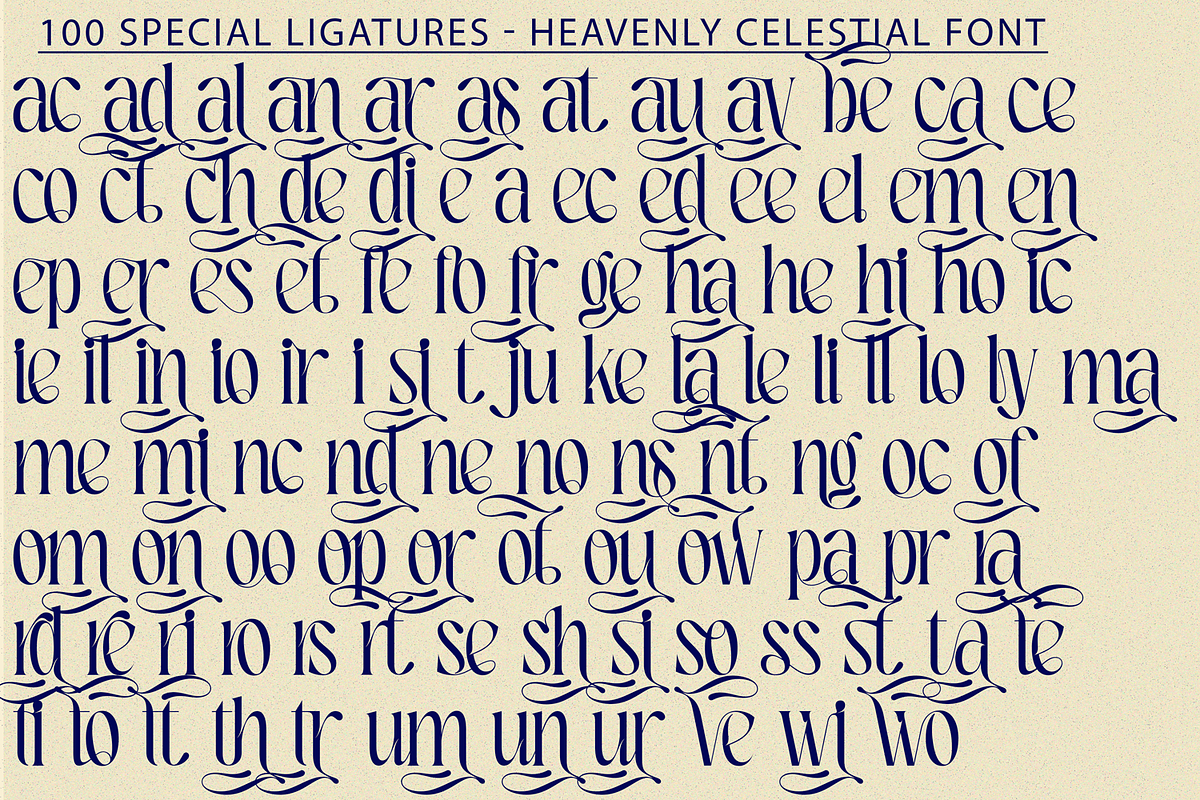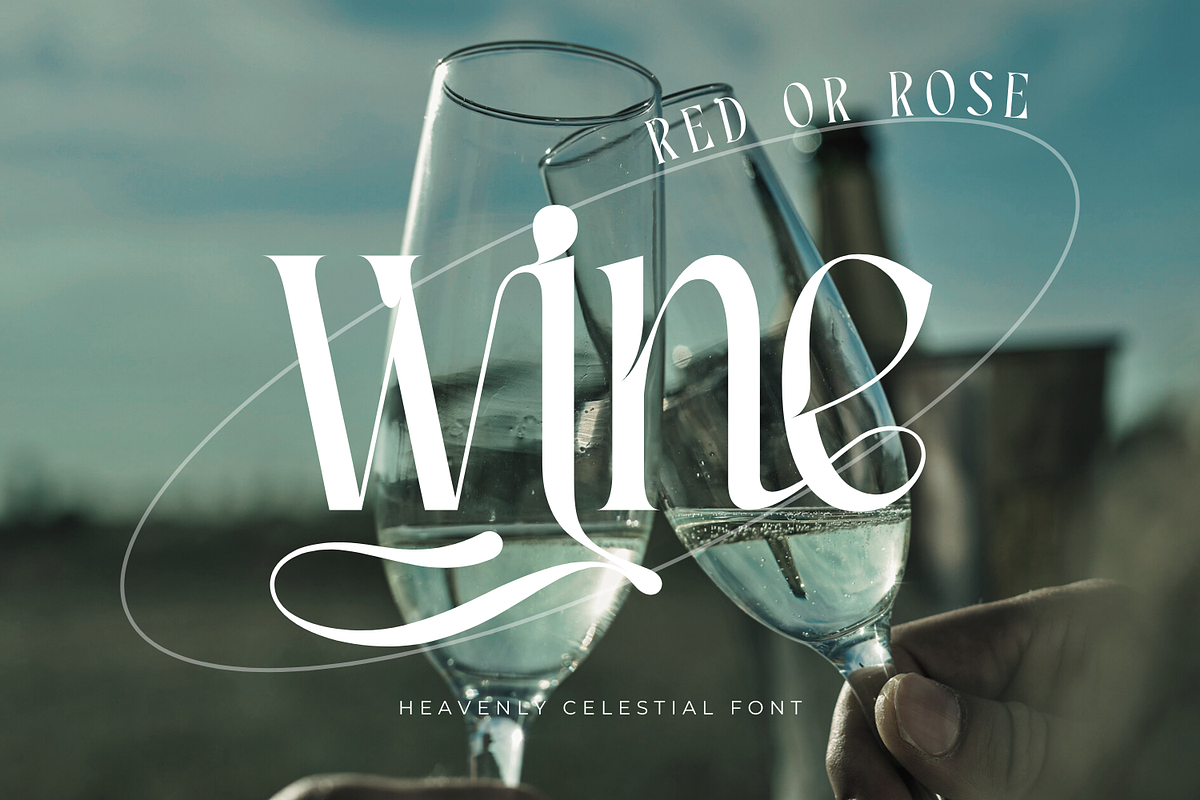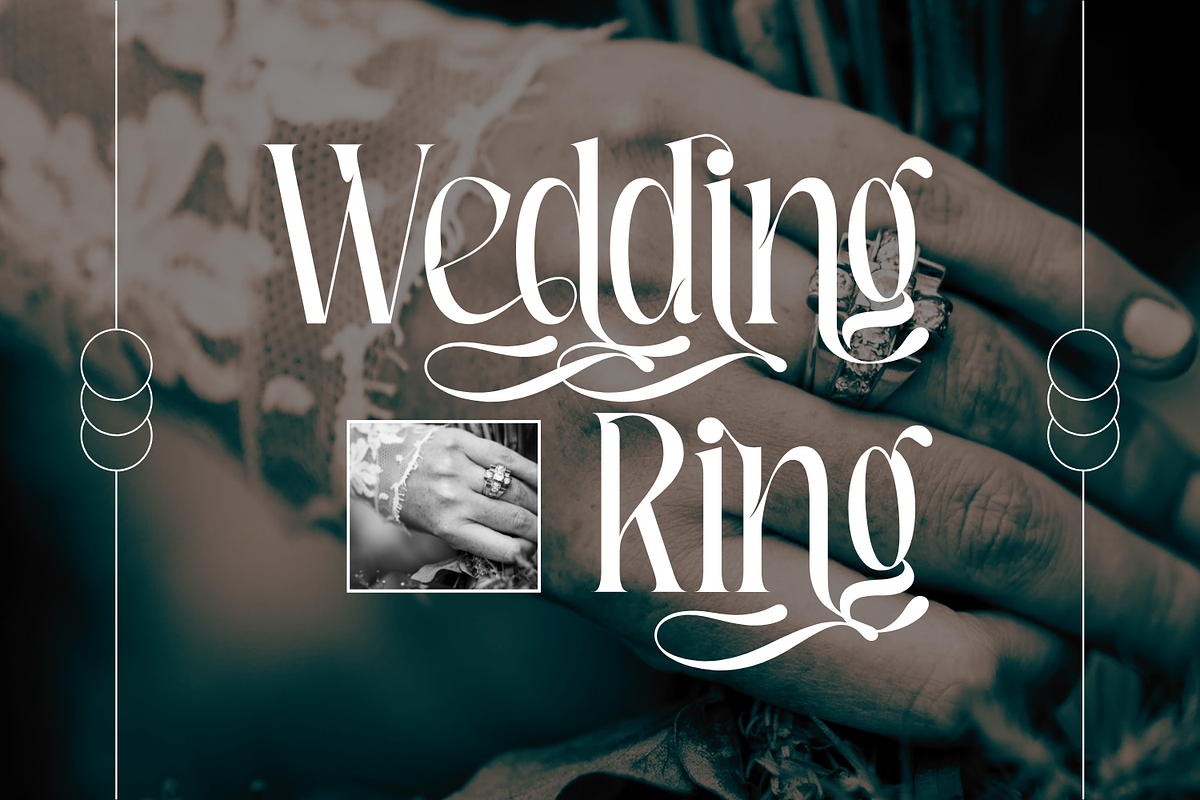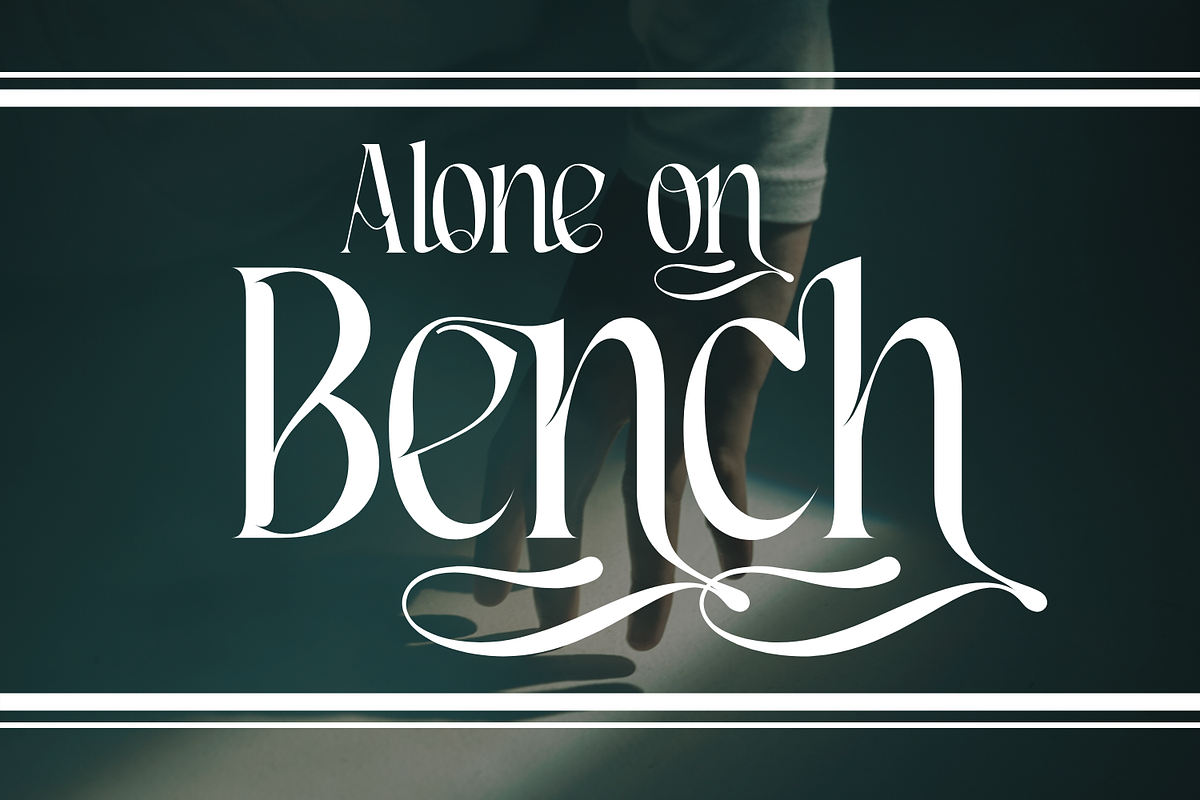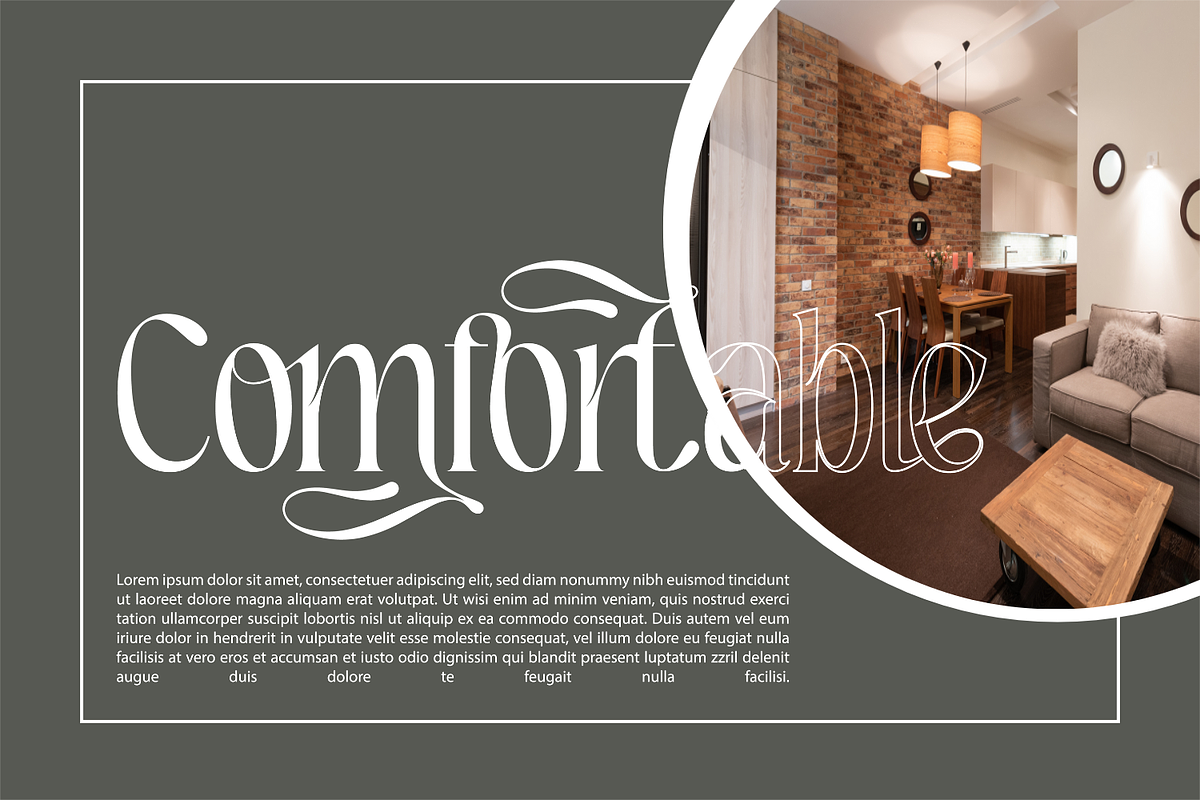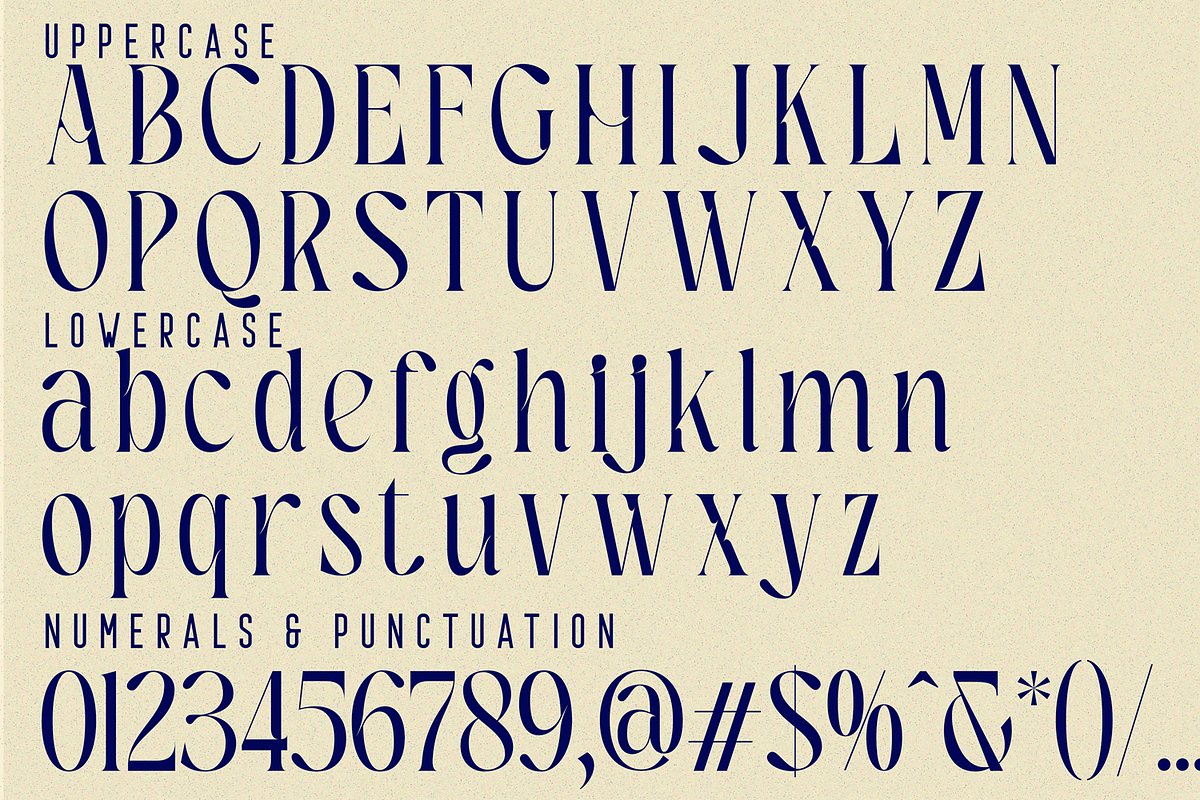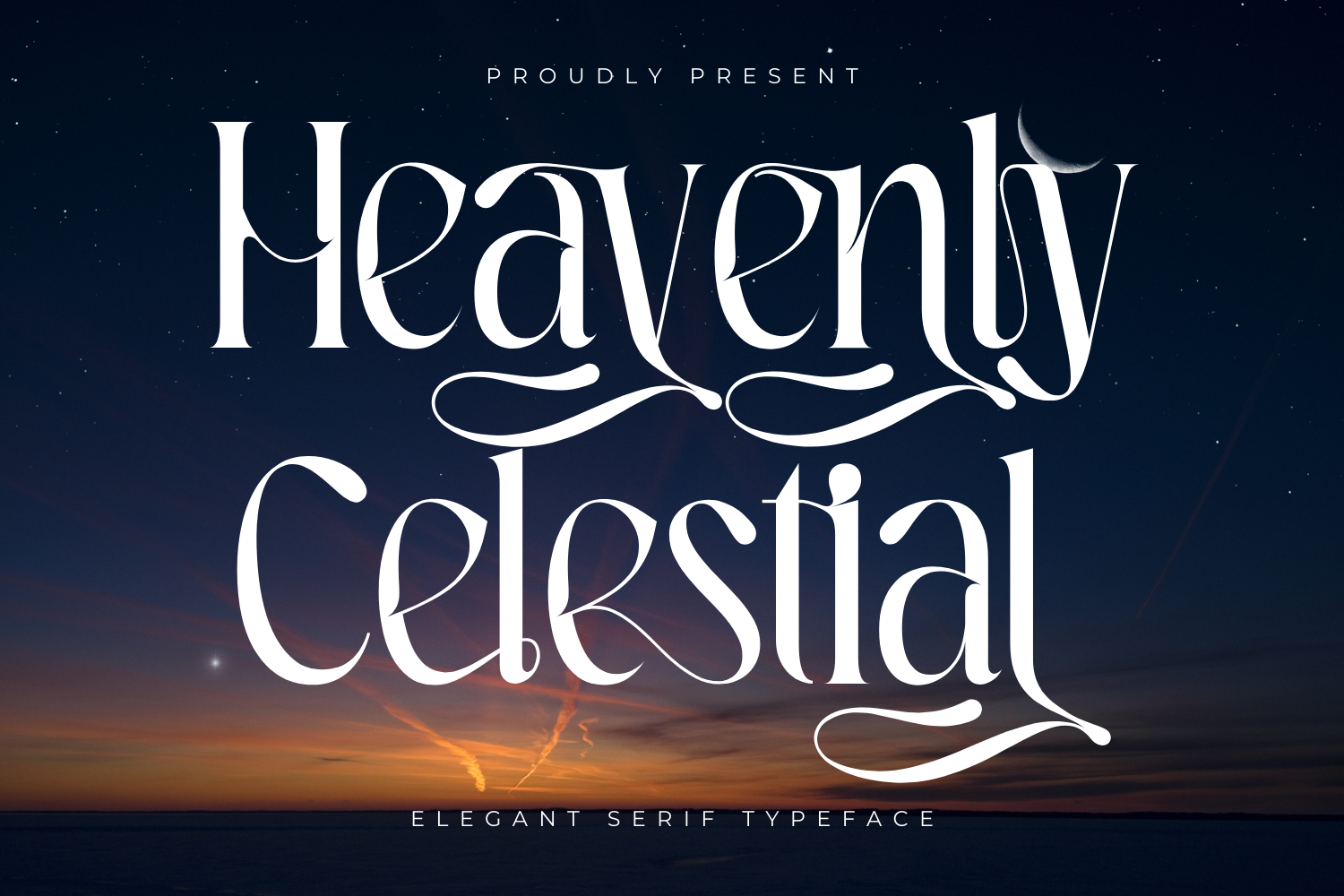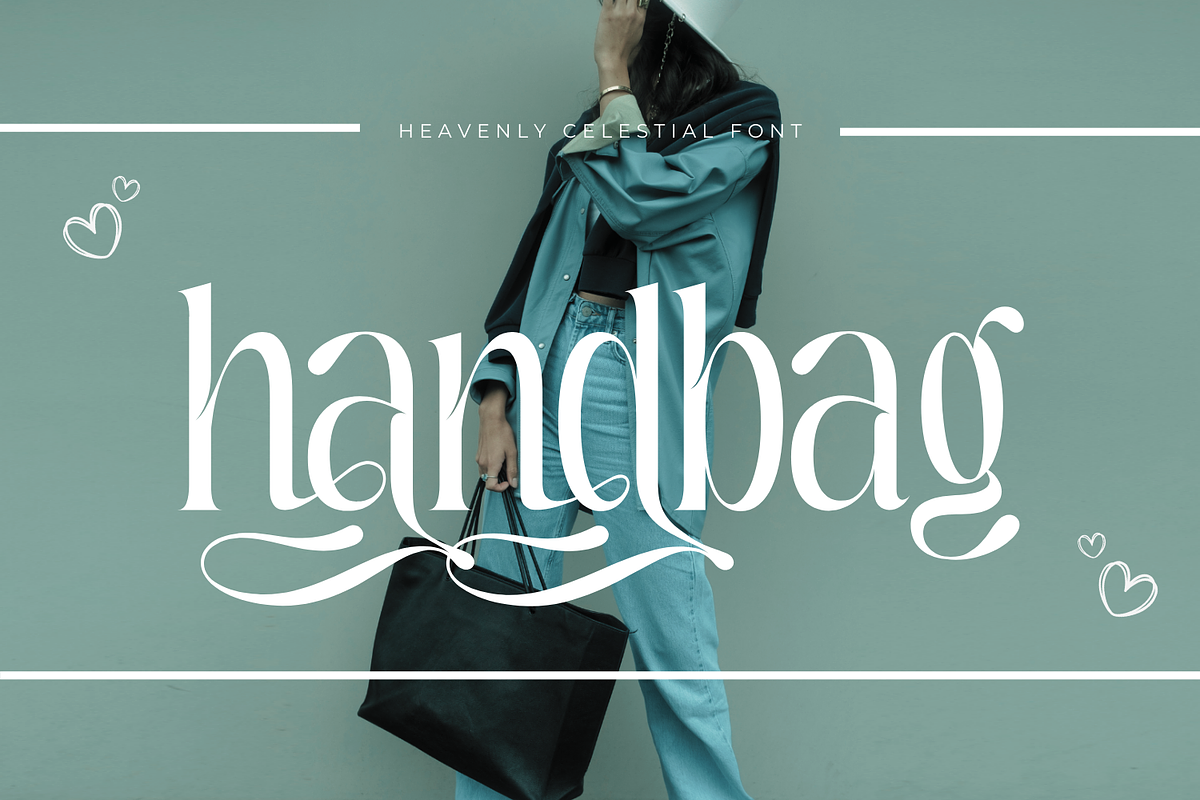
Heavenly Celestial Font
Introducing Heavenly Celestial Font – A Playful Yet Elegant Serif Font
Heavenly Celestial is a beautifully crafted serif font that perfectly balances playfulness and elegance. Designed for versatility, it features both uppercase and lowercase letters, along with an impressive collection of 100 special ligatures that blend seamlessly with alternates. This font also includes numerals, punctuation, and accented characters, ensuring full compatibility for multilingual projects.
Whether you're designing a logo, branding materials, wedding invitations, or editorial layouts, Heavenly Celestial brings a distinctive charm that enhances any creative work. Its graceful letterforms and unique ligature combinations add a touch of sophistication, making it an excellent choice for designers looking for a font that is both stylish and expressive. Let Heavenly Celestial elevate your typography with its refined yet playful personality!
Heavenly Celestial was built with OpenType features and includes 100 ligatures, alternate, numbers, punctuation, and it also supports other languages.
ac ad al an ar as at au av be ca ce ch co ct de di ea ec ed ee el em en ep er es et fe fo fr ge ha he hi ho ie ic il in io ir is it ju ke la le li ll lo ly ma me mi nc nd ne ng no nt ns oc of om on oo op or ot ou ow pa pr ra rd re ri ro rs rt se sh si so ss st ta te th ti to tr tt um un ur ve wi wo
This font also included full set of:
- Special Ligatures